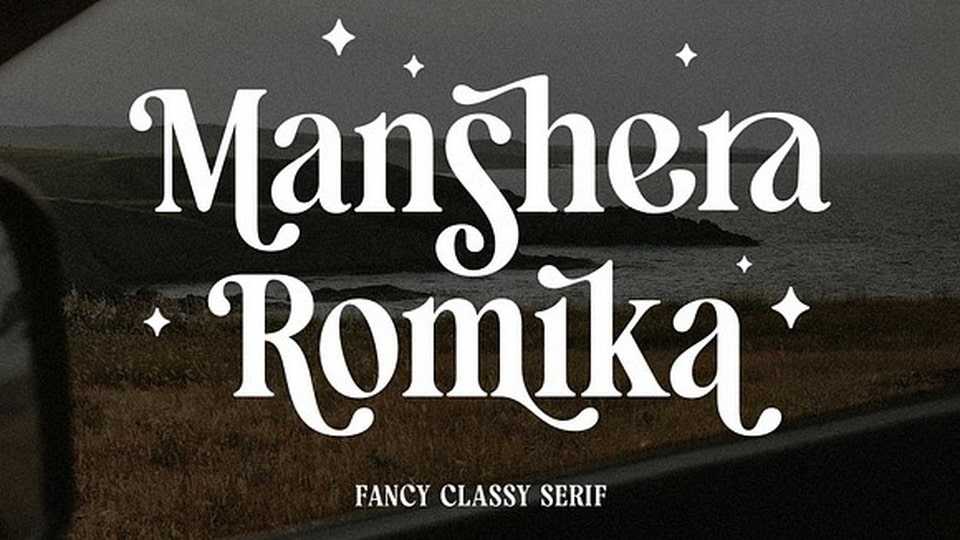
Download Manshera Romika font, a modern classy bold serif typeface. Beautiful masterpiece with lots of special characters that brings you to a modern-vintage design with a sexy thick shape.